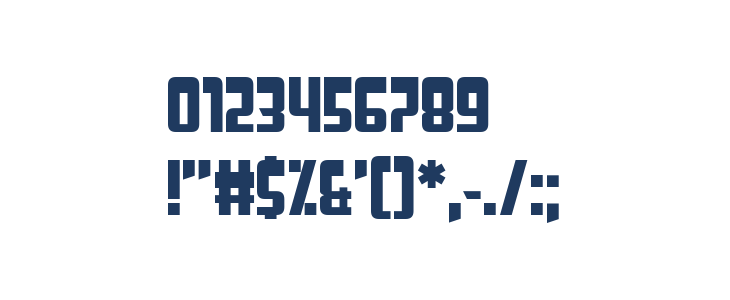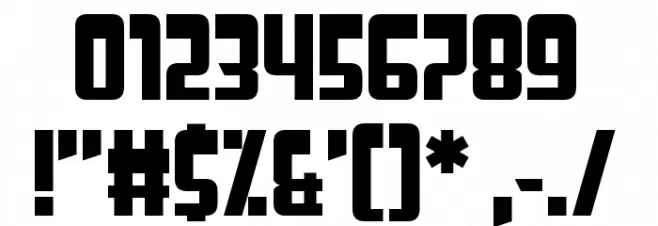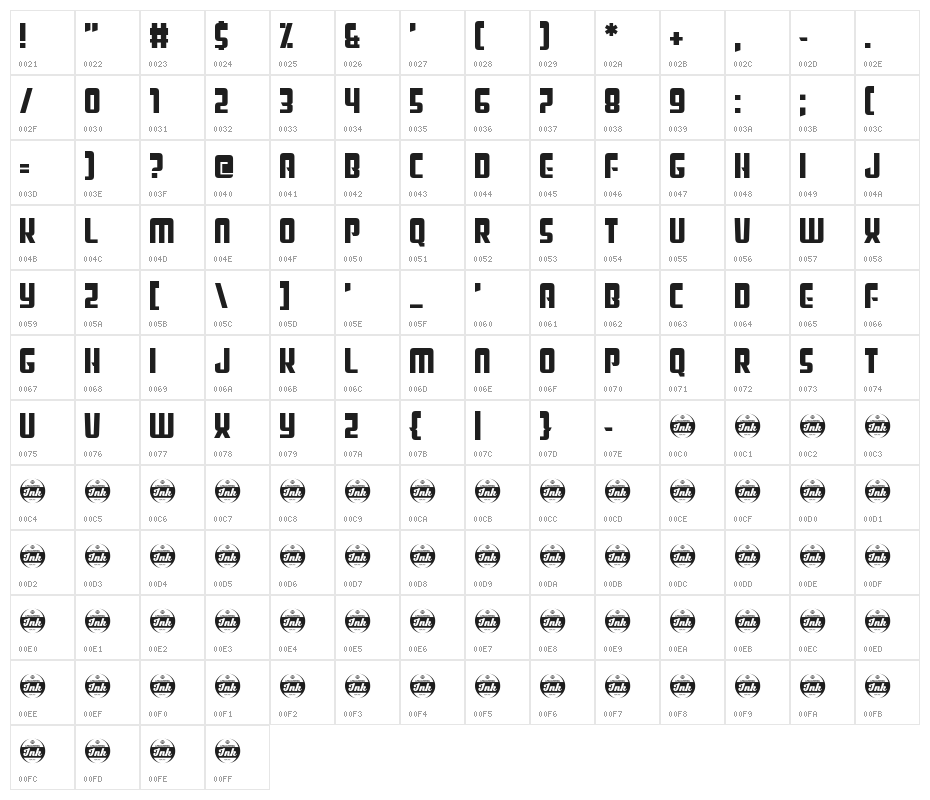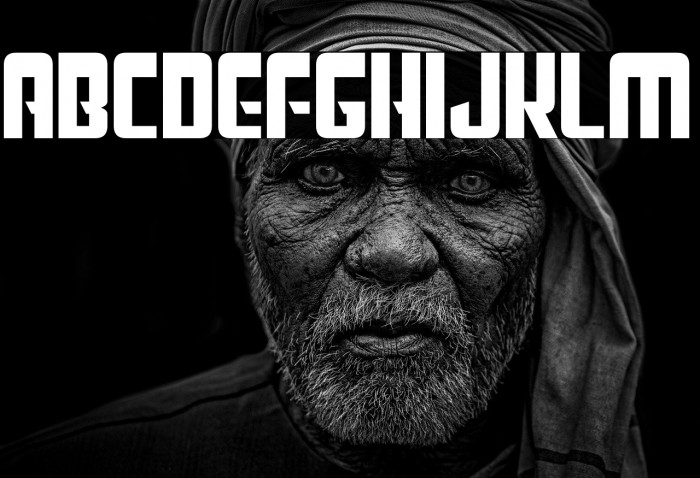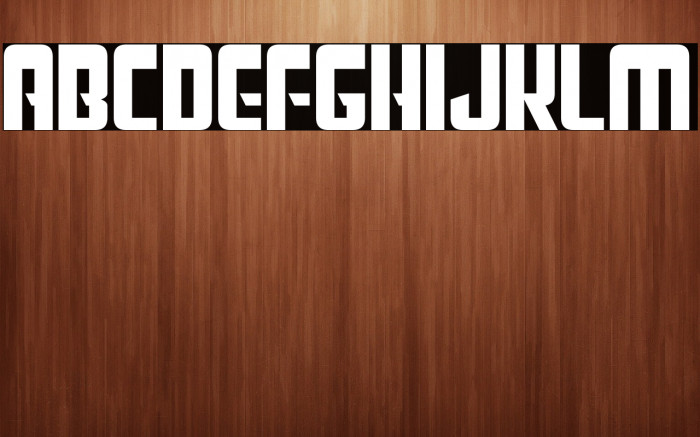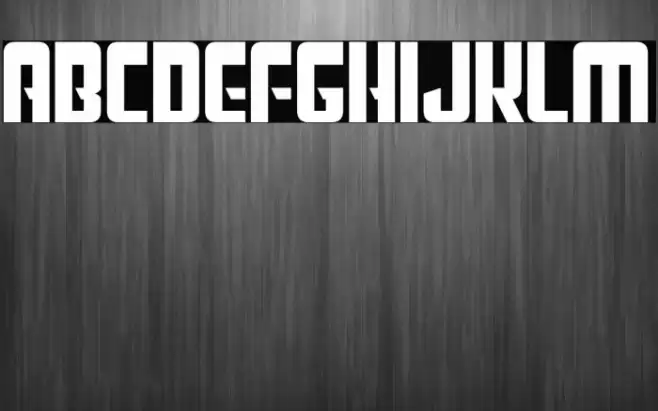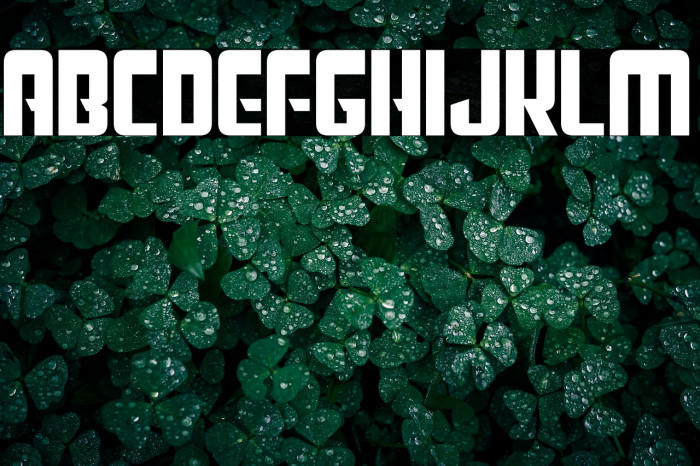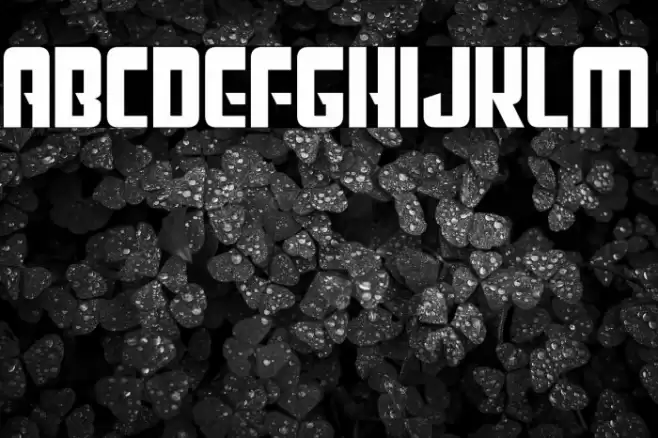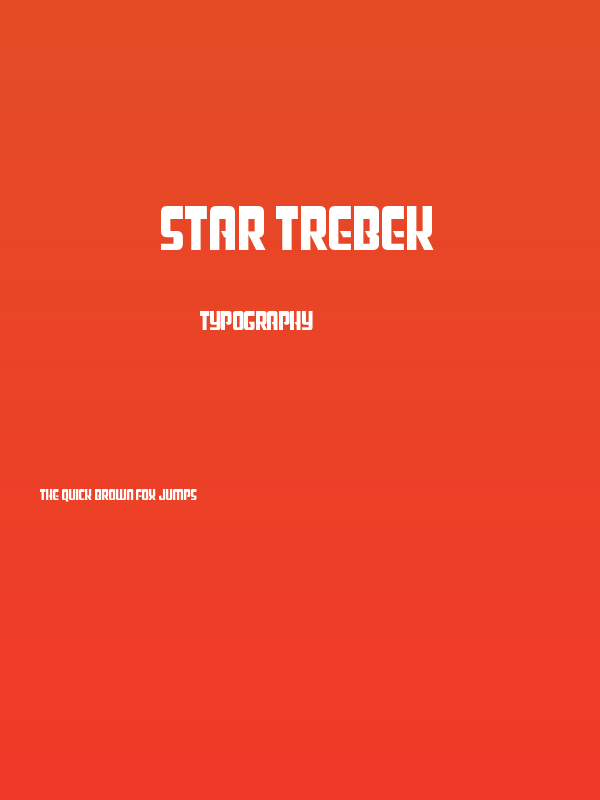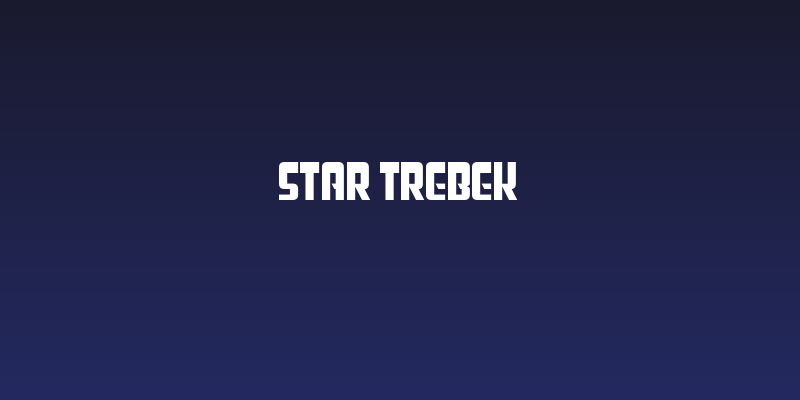
Star Trebek Font
Star Trebek Description
This font features a bold, futuristic design with strong geometric shapes and sharp angles. The characters are uniformly thick, giving a sense of strength and stability. The uppercase and lowercase letters share a consistent style, with the uppercase being slightly more pronounced. Numbers and special characters maintain the same boldness, ensuring a cohesive look across all text. The font's unique style is reminiscent of sci-fi themes, making it ideal for projects that require a modern and edgy appearance.
| Proposed Projects | Ideal for sci-fi themed posters, video game titles, technology branding, and modern logos. |